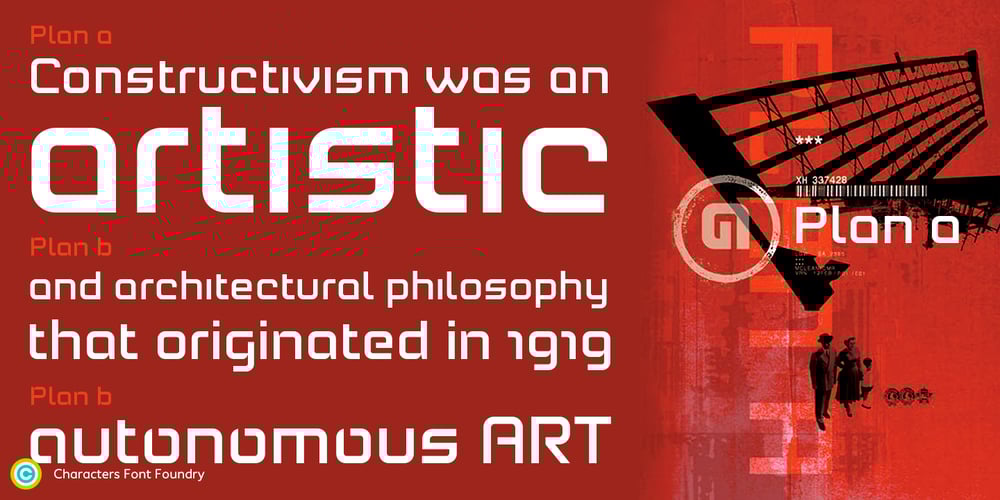
Plan Font Family was designed by René Verkaart, Frank Vogt and published by Characters Font Foundry. Plan contains 3 styles and family package options. Plan is a corporate typeface made for ‘Plan A Ontwerp’, a graphic design studio based in Eindhoven, The Netherlands. Based on the rough sketches of the founder of Plan A Ontwerp, Frank Vogt, Characters constructed, mastered and finetuned the complete Plan Family. Plan comes in three versions; Plan A, Plan B and Plan C. All versions can be mixed because they share the same metrics, spacing and kerning. Where Plan A is a strong display type, Plan B has more details and is therefore better suited for longer and smaller texts. Plan C is a decorative stencil version with an own personality and dynamic.